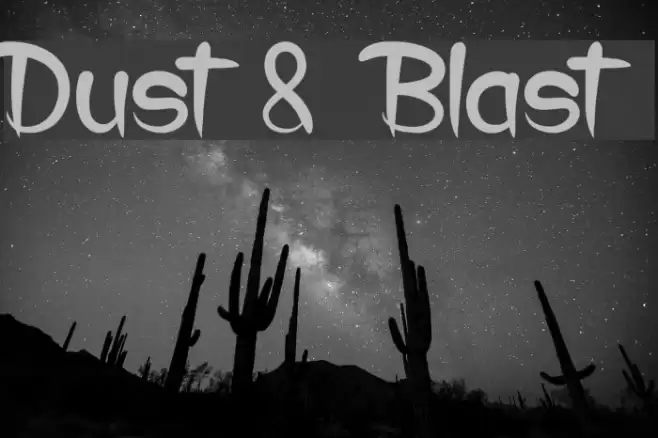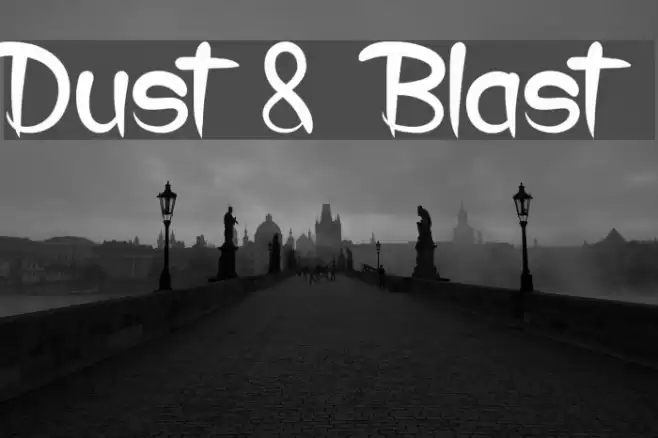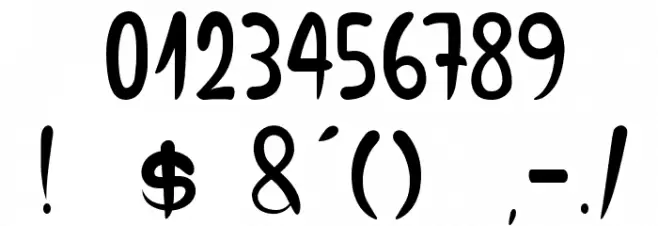
Dust & Blast Font
Dust & Blast Description
This font features a bold and playful design with a unique, slightly gothic flair. The characters have a whimsical touch, with pointed serifs and exaggerated curves that give them a dynamic and energetic appearance. The uppercase letters are particularly striking, with a sense of movement and flow, while the lowercase letters maintain a consistent style that complements the overall design. The numbers and special characters are equally expressive, making this font suitable for creative and eye-catching projects.
A bold, playful font with a gothic flair and dynamic curves from Uncategorized fonts.